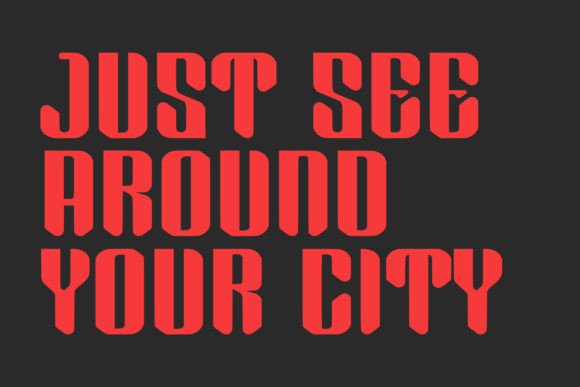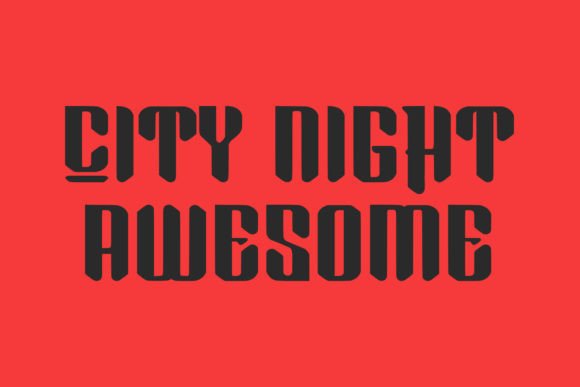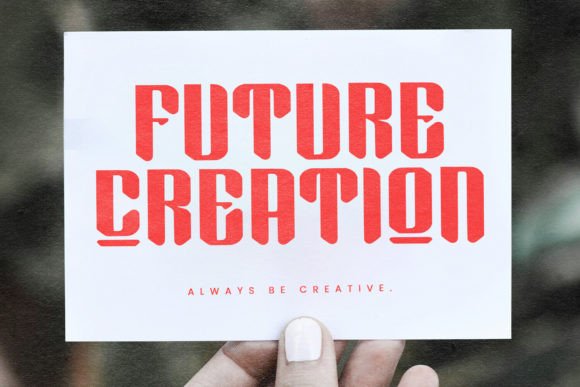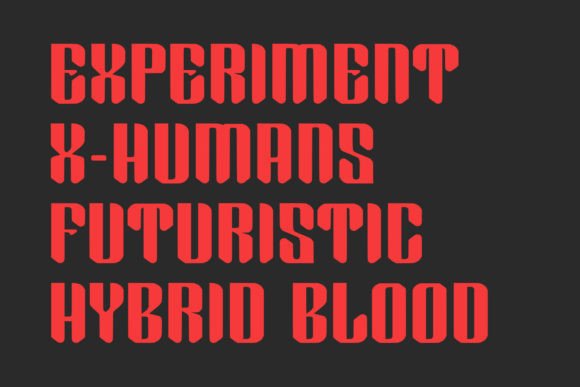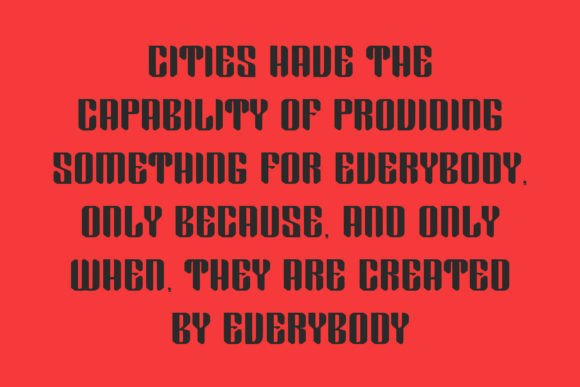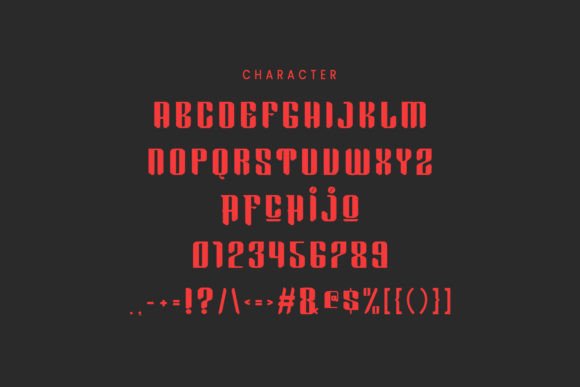
Folettes Font: A Futuristic Masterpiece
Folettes is a sleek and modern font with a futuristic style. Its unique shapes and bold design make it perfect for eye-catching titles and creative projects, giving a high-tech, futuristic look! Whether you’re working on a branding project, a website design, or a craft, Folettes is sure to make a statement.
- ✨ **Unique and futuristic design**: Folettes stands out from the crowd with its bold and modern look.
- ✅ **Highly legible**: Despite its futuristic style, Folettes is surprisingly easy to read, even at smaller sizes.
- 💻 **Versatile**: Folettes works well for both digital and print projects, making it a great addition to any designer’s toolkit.
- 🤔 **Limited use for body text**: Folettes is best suited for headlines and titles, as it can be overwhelming for longer blocks of text.
- ⚠️ **May not work well with all design styles**: Folettes is a bold font, and it may clash with more traditional or elegant design styles.
The Designer Behind Folettes
Folettes was designed by a team of creatives who wanted to create a font that would capture the essence of the future. Inspired by sci-fi movies and futuristic architecture, they crafted a font that is both bold and elegant. The result is a font that is both modern and timeless.
| Font Name | Folettes Font |
| What is Folettes Font best used for? | Folettes is best used for headlines, titles, and creative projects where a futuristic look is desired. |
| Is Folettes Font available in different weights? | Yes, Folettes Font is available in different weights, making it versatile for various design projects. |